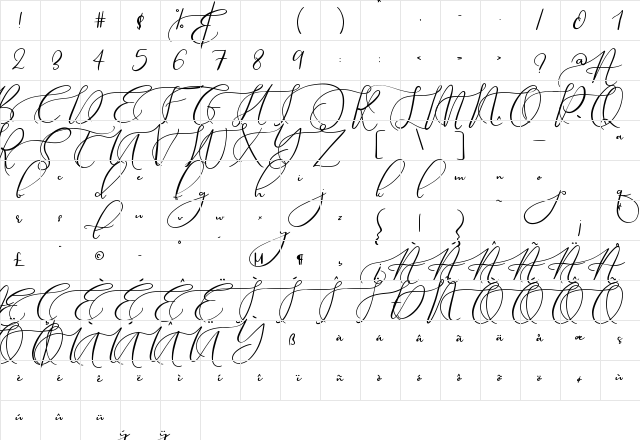
Theodoria Black Regular
Theodoria Black Family
Design Context for Theodoria Black
Theodoria Black is a composed and adaptable typeface that performs quietly and consistently across a wide range of design contexts.